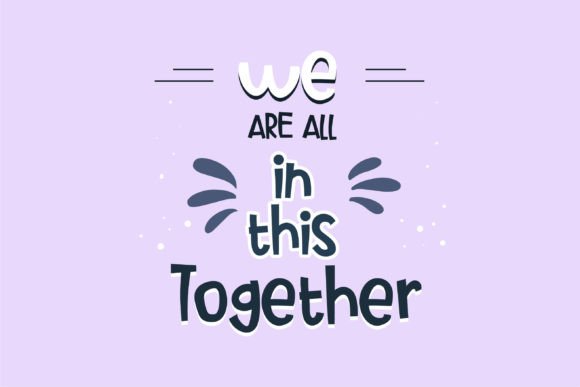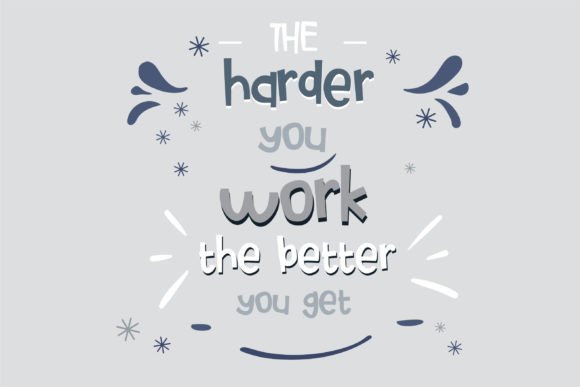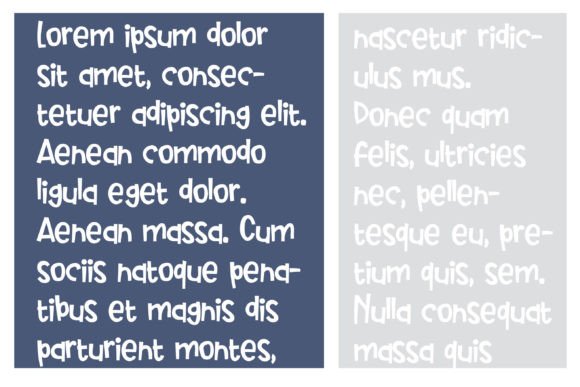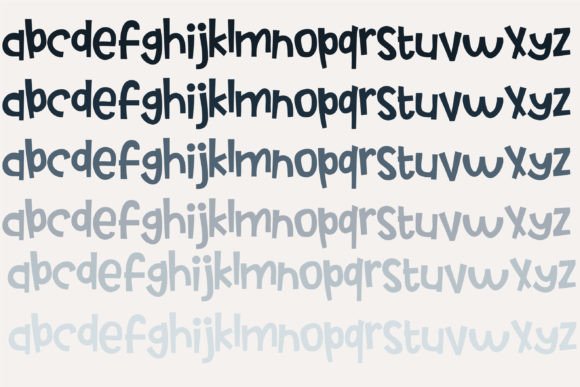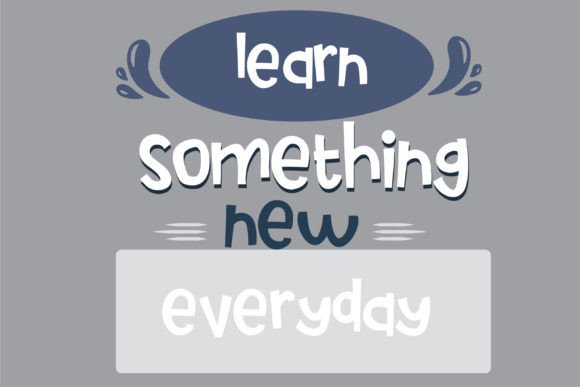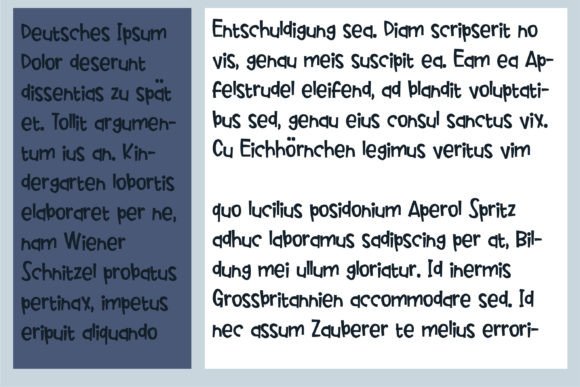
The Perfect Font for a Whimsical Touch
Have you ever stared at a blank page, trying to come up with the perfect font to bring your design to life? It’s a moment we’ve all been there – the creative struggle is real. But what if I told you that there’s a font that’s guaranteed to add a dash of whimsy and playfulness to your work? Enter Breazer Font, the blocky, silly, and very crafty sans serif font that’s perfect for anything with a youthful vibe.
Breazer Font is designed to be the perfect addition to storybooks, book covers, magazines, name tags, product packaging, and more. Its unique characteristics make it a valuable tool for designers looking to add a touch of personality to their work. With Breazer Font, you can create designs that are both fun and professional, making it a must-have for any creative project.
Breazer Font Key Features
- Font Family: Breazer is a sans-serif font family designed for digital use.
- Character Set: The font family includes a wide range of characters, including Latin, Cyrillic, and Greek alphabets, as well as punctuation and symbols.
- Unique Characteristics: Breazer Font features a clean, modern design with subtle rounded edges, making it suitable for use in a wide range of applications, from corporate branding to digital products.
Breazer Font Review
As a designer, I was excited to try out the Breazer font. Here’s my honest review:
The Breazer font is a great addition to any designer’s toolkit. I love the modern and clean aesthetic it brings to any project. The font is highly customizable, making it perfect for logos, branding, and even web design. The bold and italic versions are particularly useful for adding emphasis to text.
- Friendly and approachable feel
- Excellent for body text and headings
- Easy to customize and use
While the Breazer font is great, it’s not perfect. The font is a bit limited in its character set, which can be a problem for designers who need to use special characters or languages that aren’t supported.
- Limited character set
- No support for special characters or languages
- May not be suitable for complex or technical text
The Breazer font is a solid choice for designers who want a modern and clean font. While it has some limitations, its strengths make it a great addition to any project. I would definitely recommend it for designers who need a versatile and easy-to-use font.
For best results, use Breazer Font in headings and titles to add a touch of elegance.
Use Breazer Font to create eye-catching titles and headings in your designs.
Use Breazer Font to add a professional touch to your presentations and documents.
Tips for Getting the Most Out of Breazer Font
1. Use Breazer Font in conjunction with a clean and minimalistic design to create a sophisticated look.
2. Experiment with different font sizes and colors to add visual interest.
3. Use Breazer Font for headings and titles to create a clear hierarchy of information.
1. Branding and logos
2. Business presentations
3. Digital marketing materials
4. Editorial design